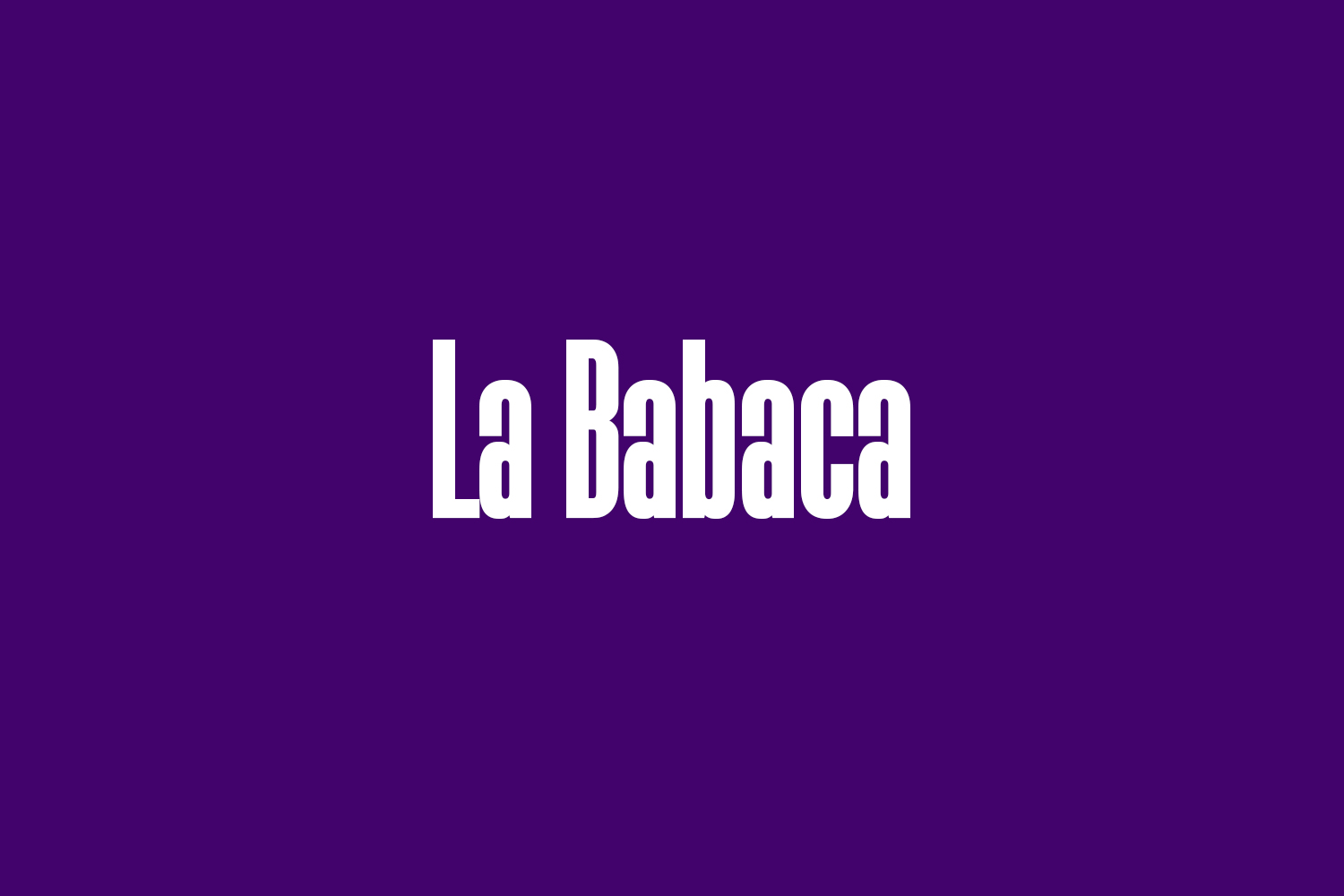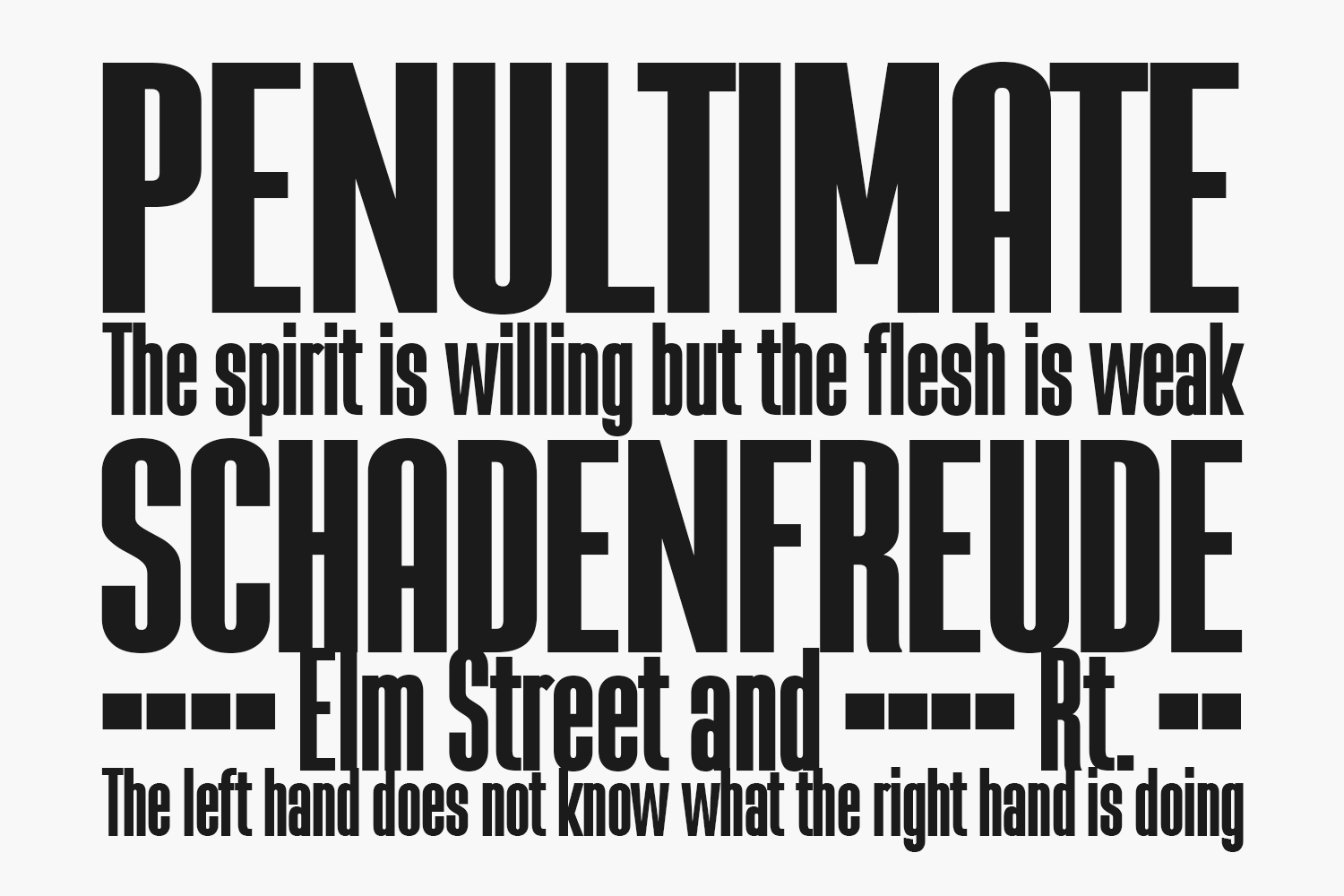
La Babaca Free Font is a black typeface without serifs and compressed very simple geometric shapes, unadorned sober display font that provides a great space saver for big titles. Please purchase the full version for commercial use.